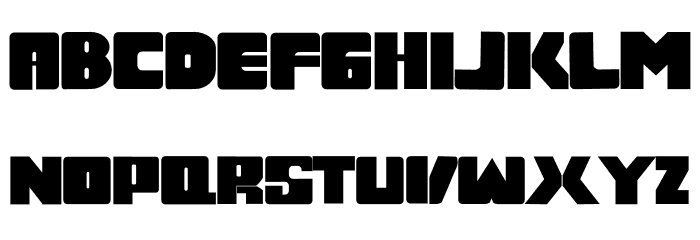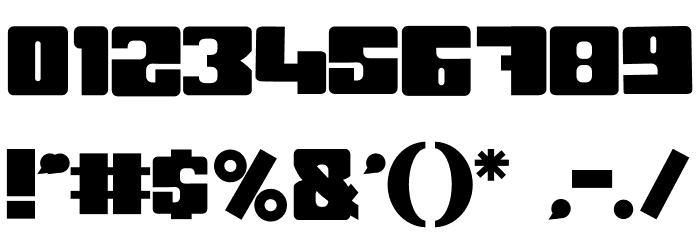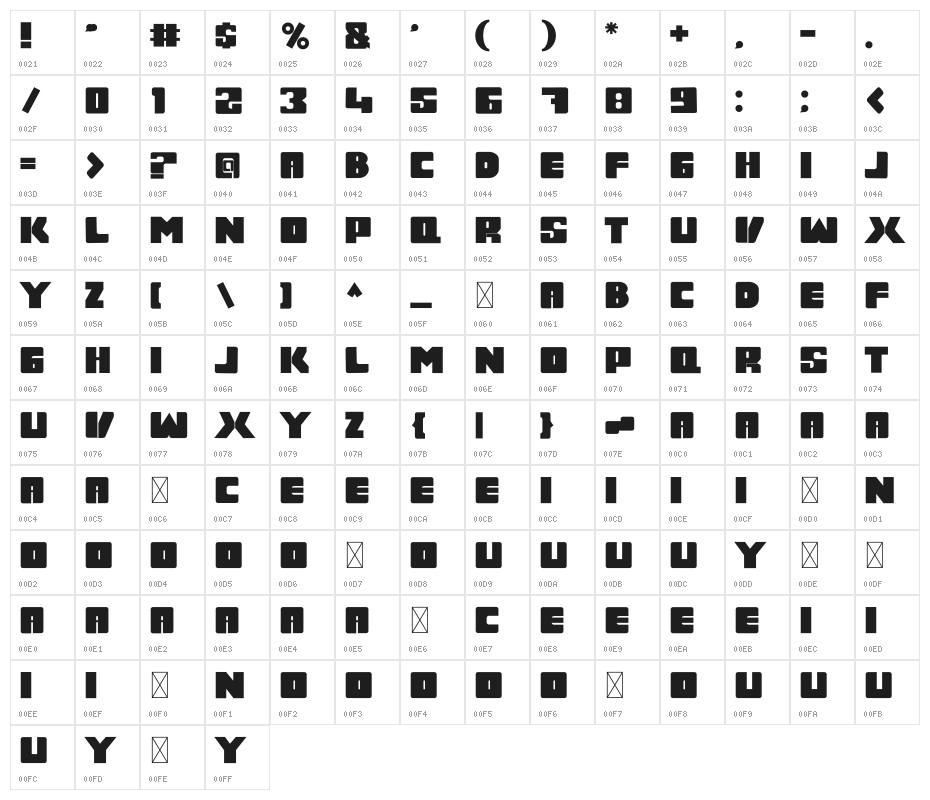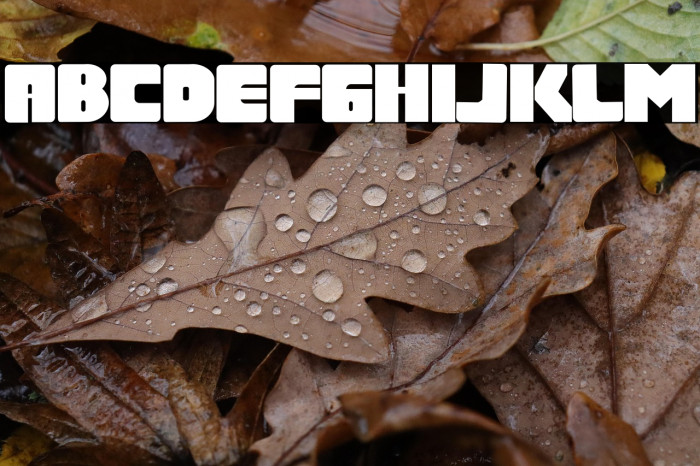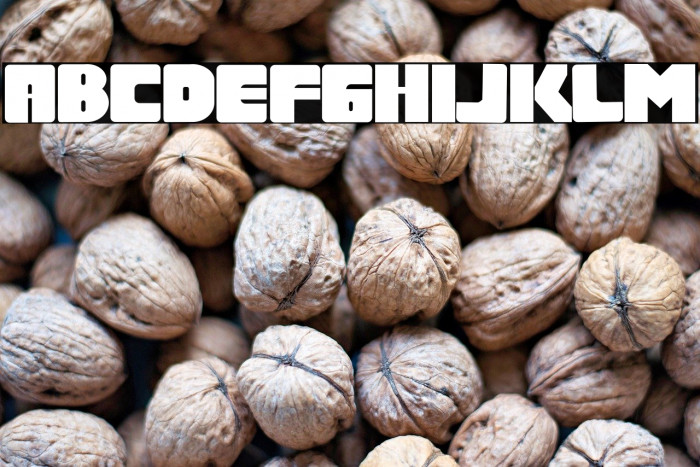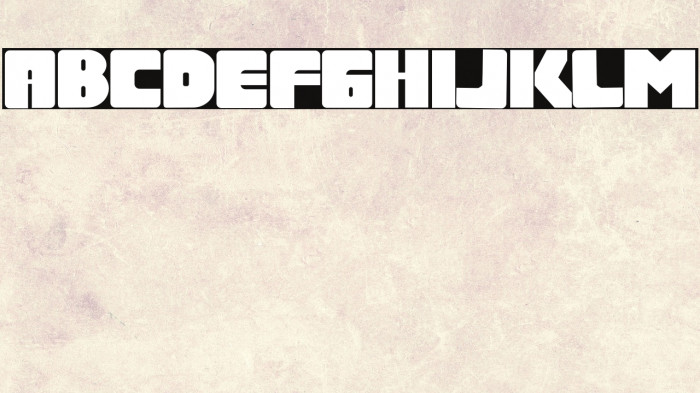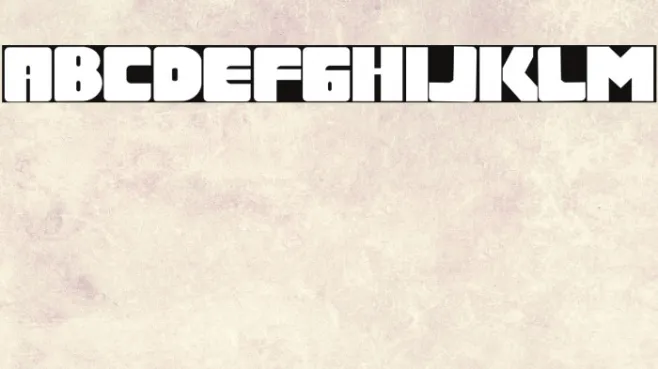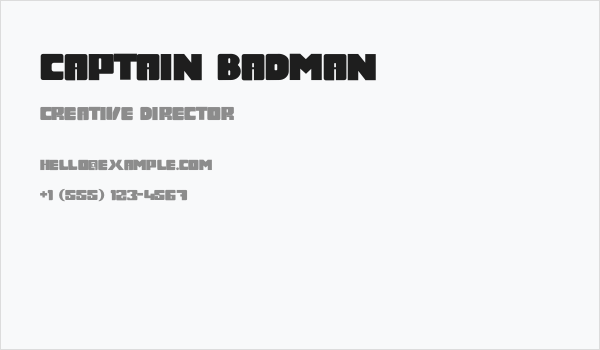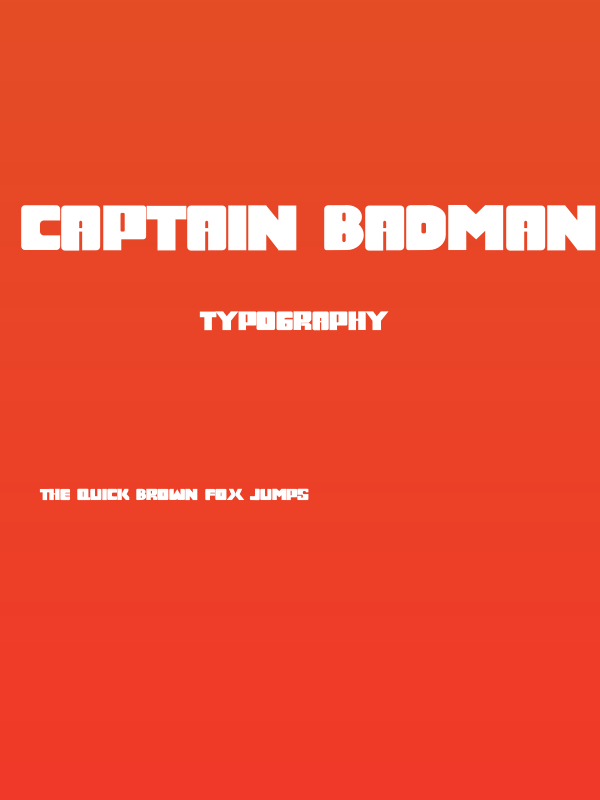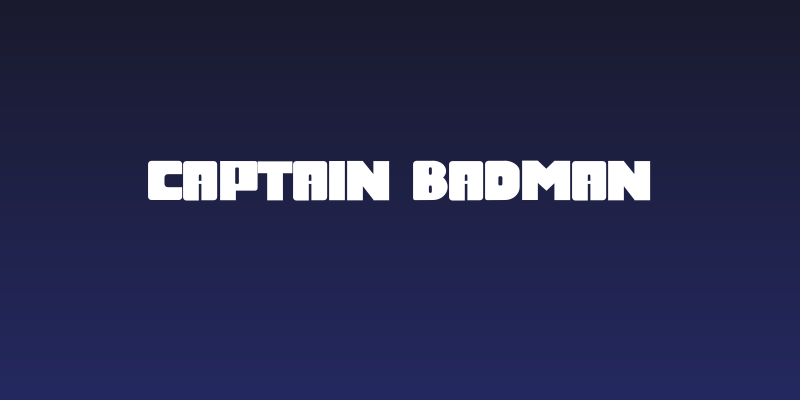
Captain Badman Font
This font features a bold and blocky design, characterized by its thick, uniform strokes and geometric shapes. The letters are wide and have a strong presence, making them ideal for attention-grabbing headlines. The uppercase and lowercase letters share a consistent style, with rounded edges that soften the overall look. Numbers and special characters maintain the same boldness, ensuring a cohesive appearance across all text elements. The font's design is modern and assertive, suitable for projects that require a strong visual impact.
A bold, blocky font with geometric shapes and rounded edges.
- Font: Captain Badman
- Width: Expanded